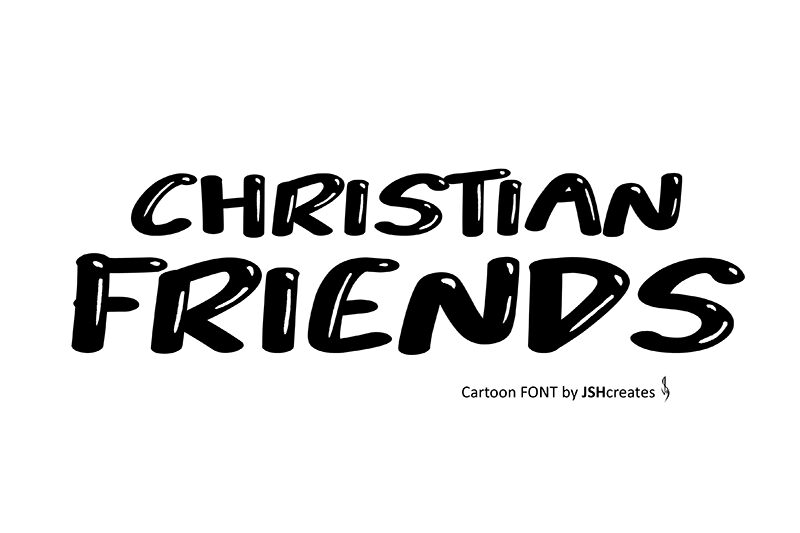
Christian Friends font is a free font by JSH creates designed with inspiration from cartoon typography and design. It features rounded forms adorned by a glossy finish which contributes to a modern, informal, and friendly character. Children would particularly like and enjoy using this font family. However, grown-ups can use it in projects for kids and youth then get the same positive results.
Christian Friends is a whimsical and dynamic typeface that's suited for children's games, books, applications, TV programs, and animated movies. Print uses include invitations, board games, banner ads, and much more.